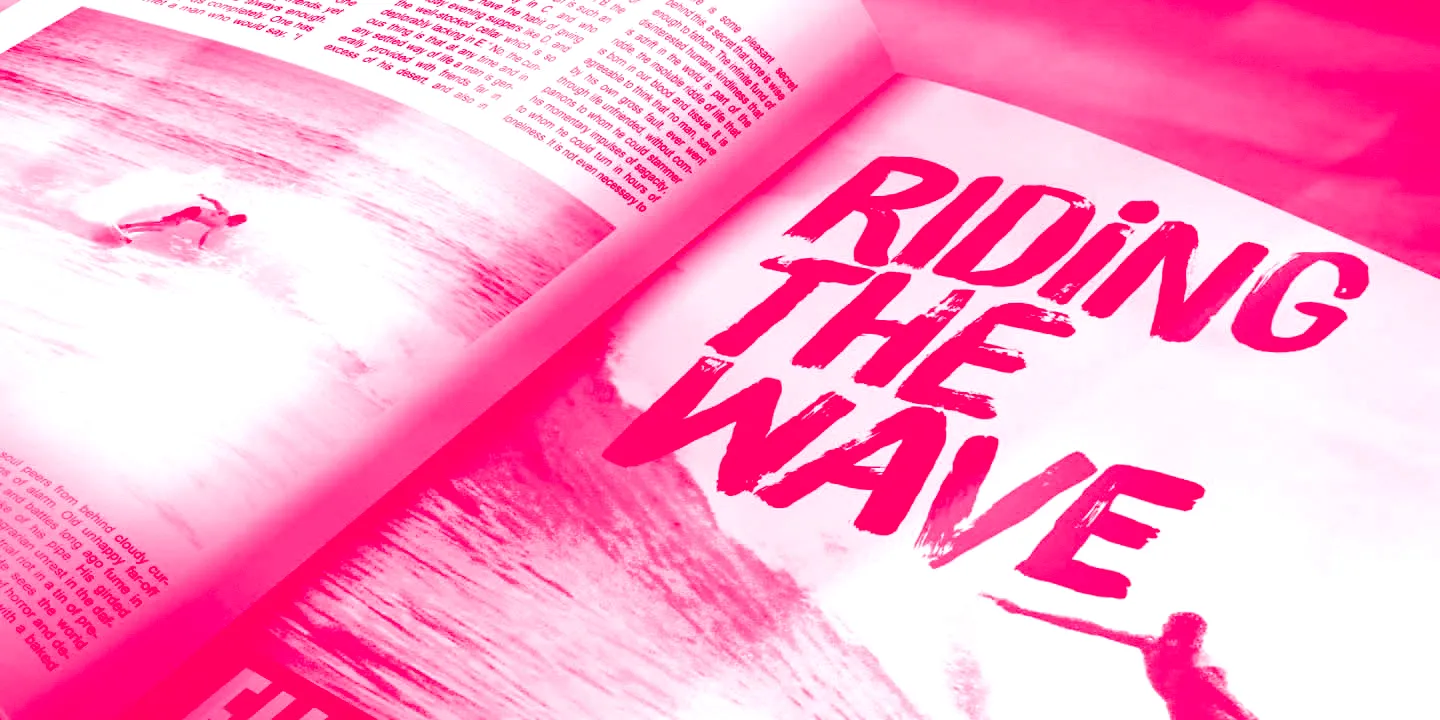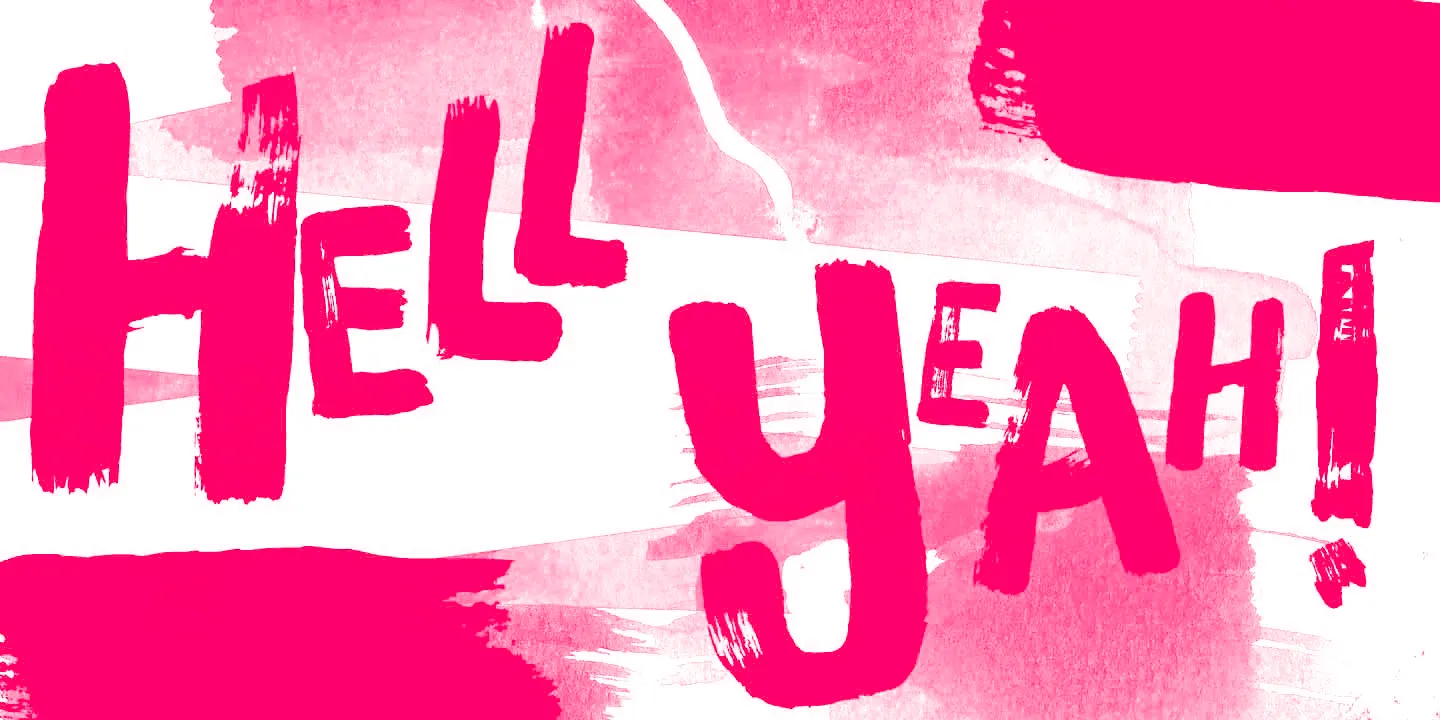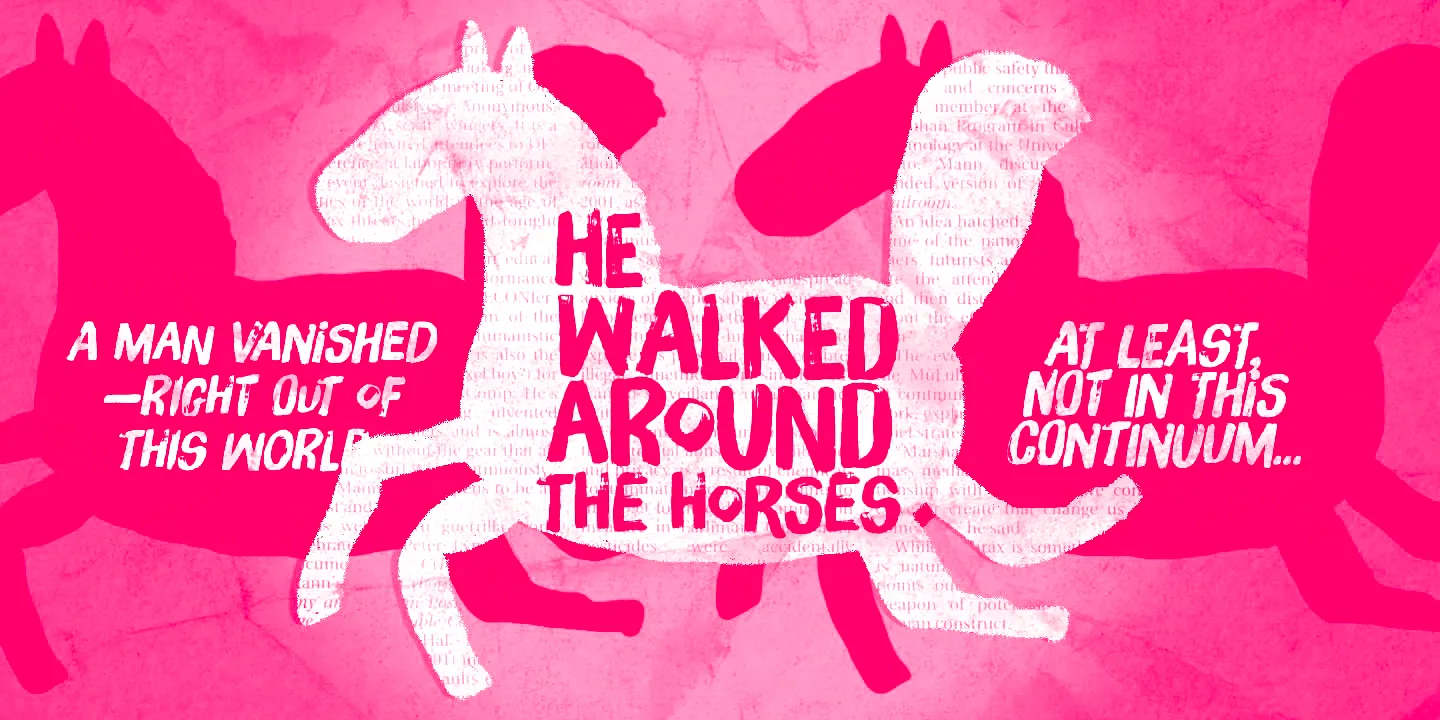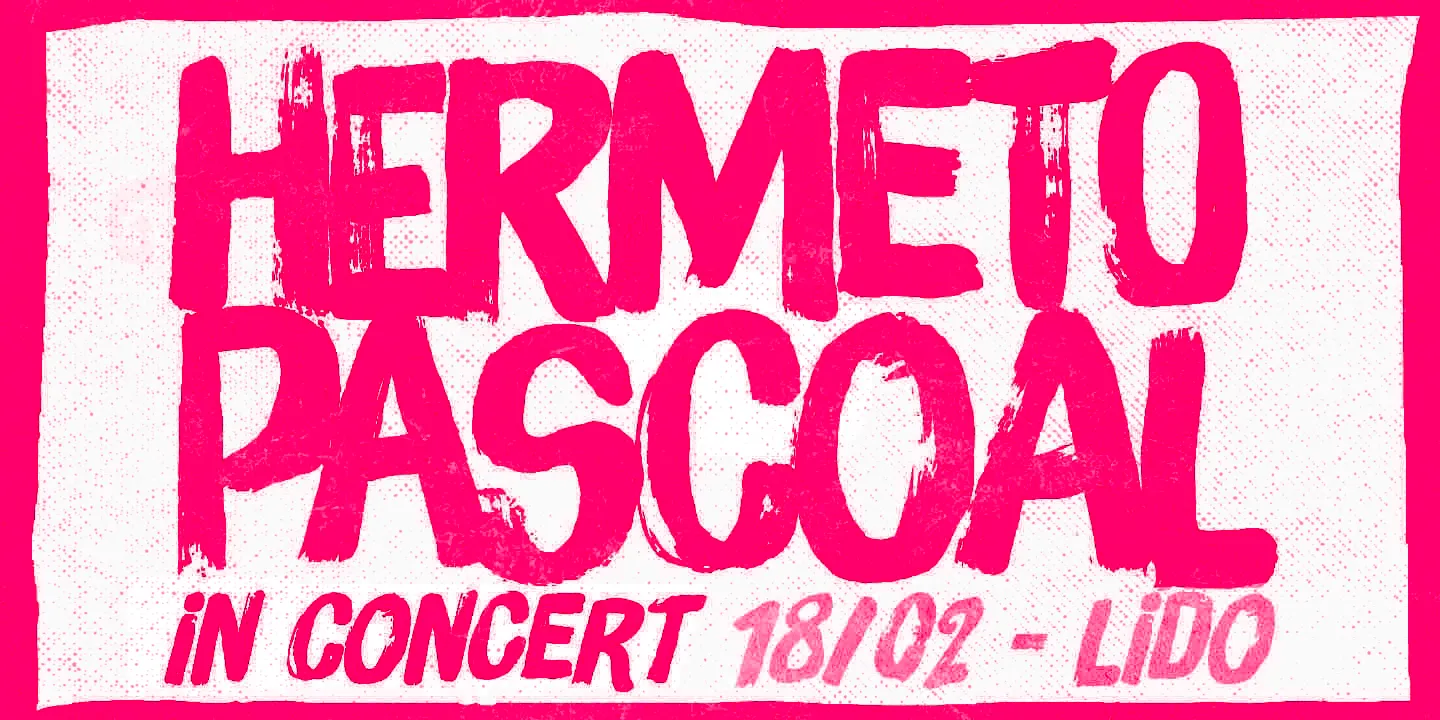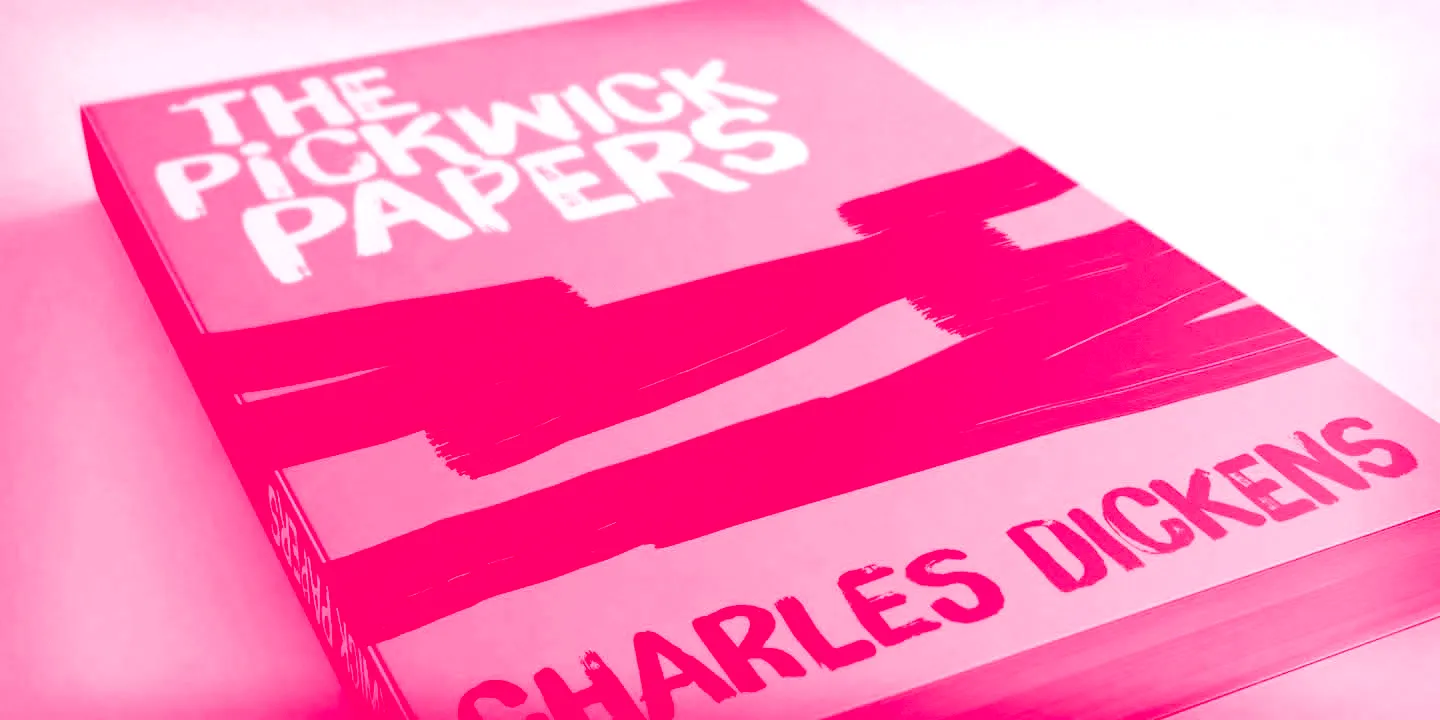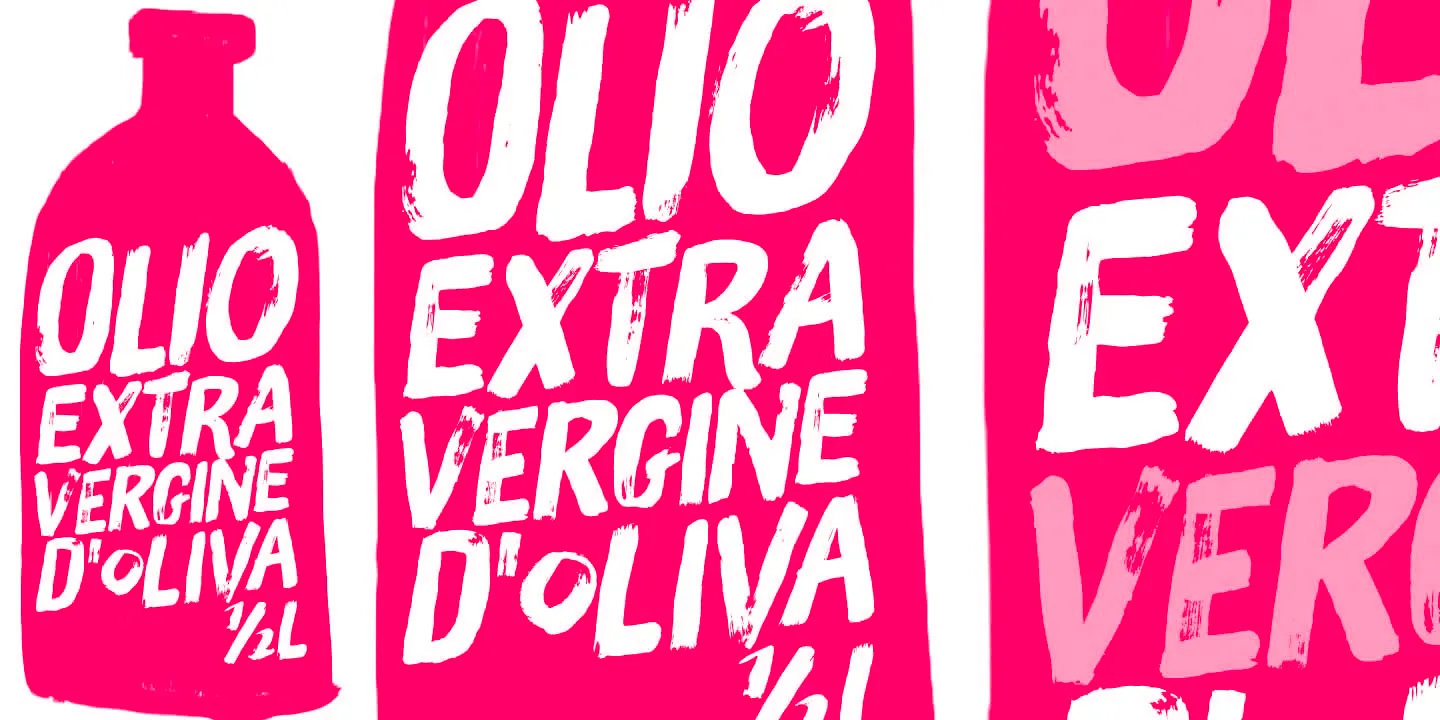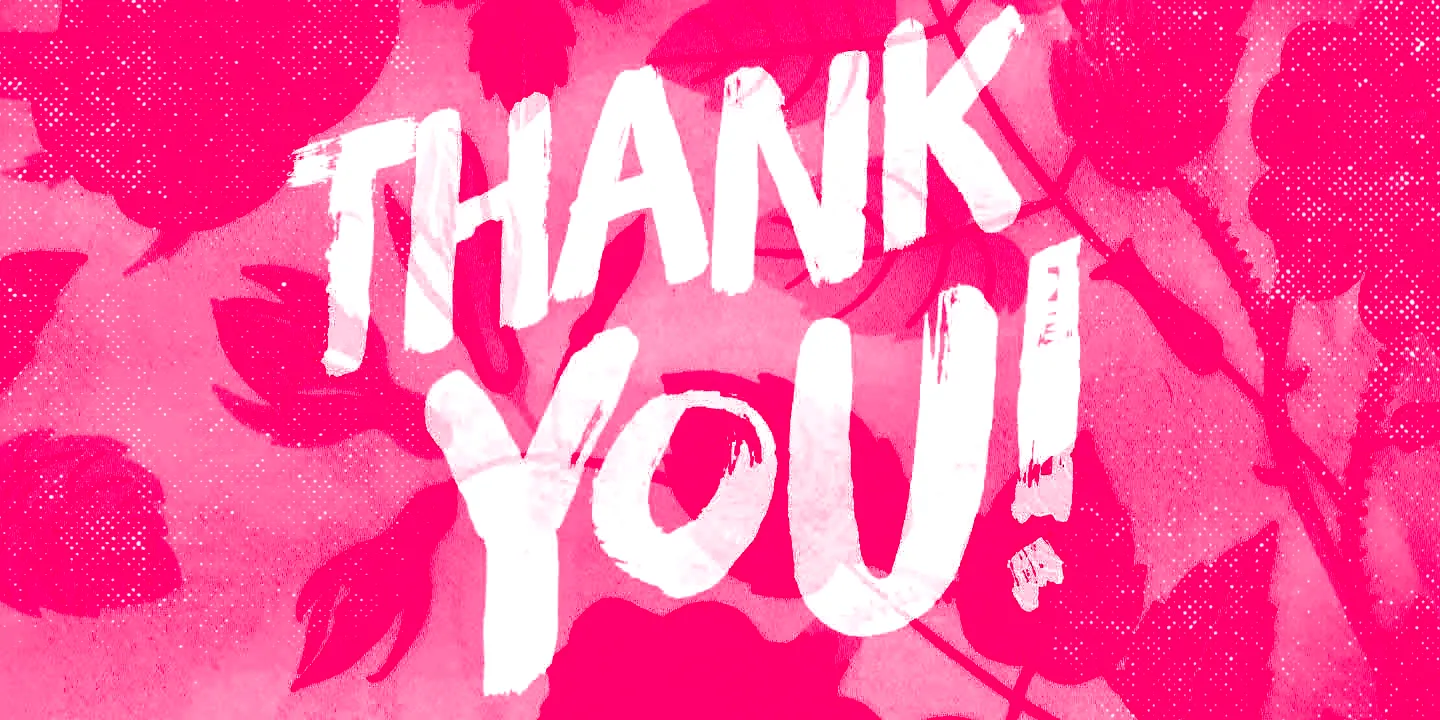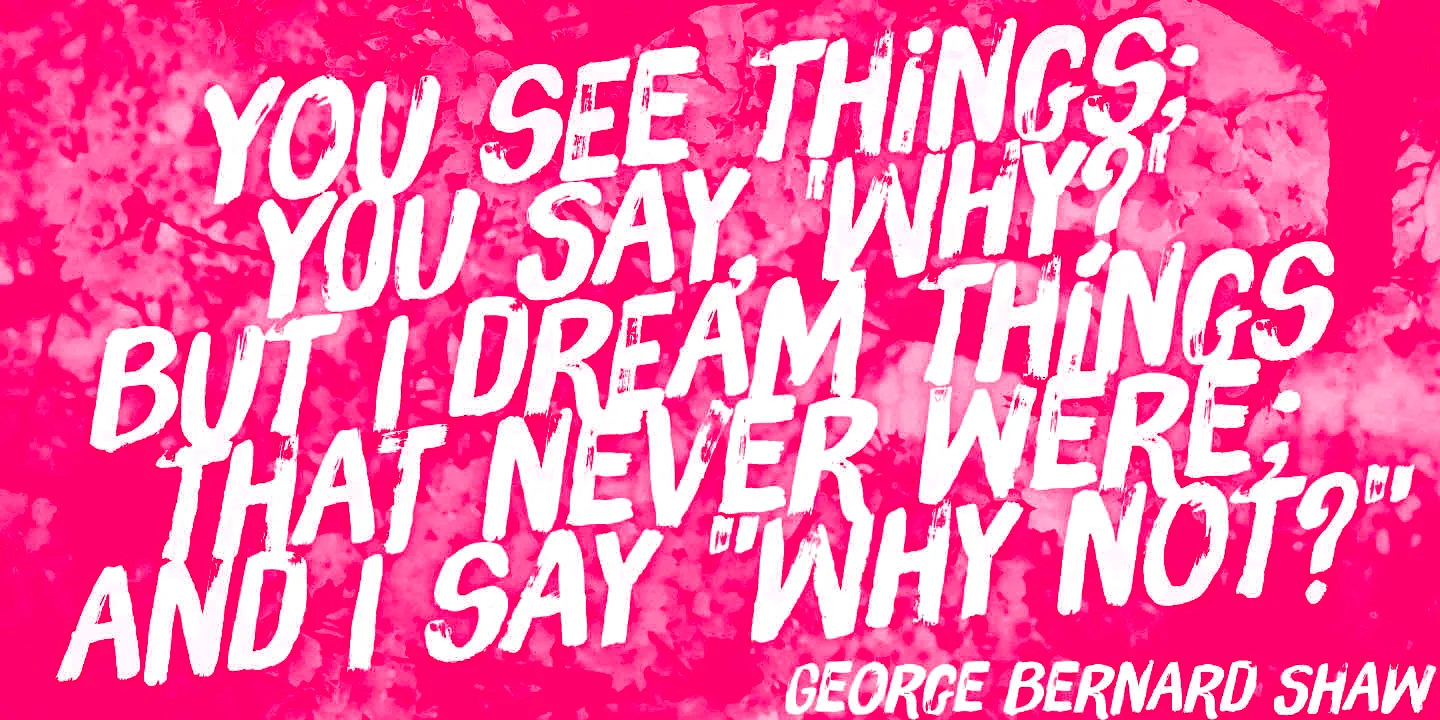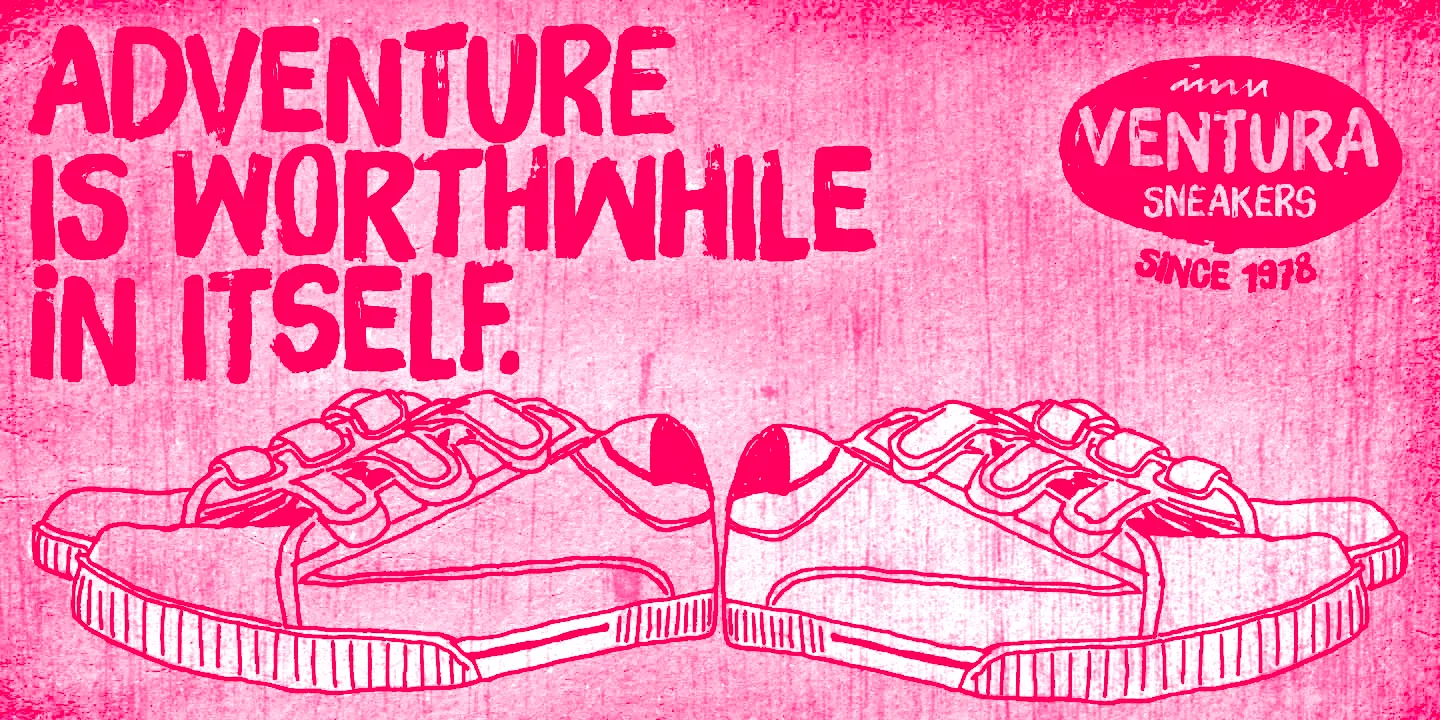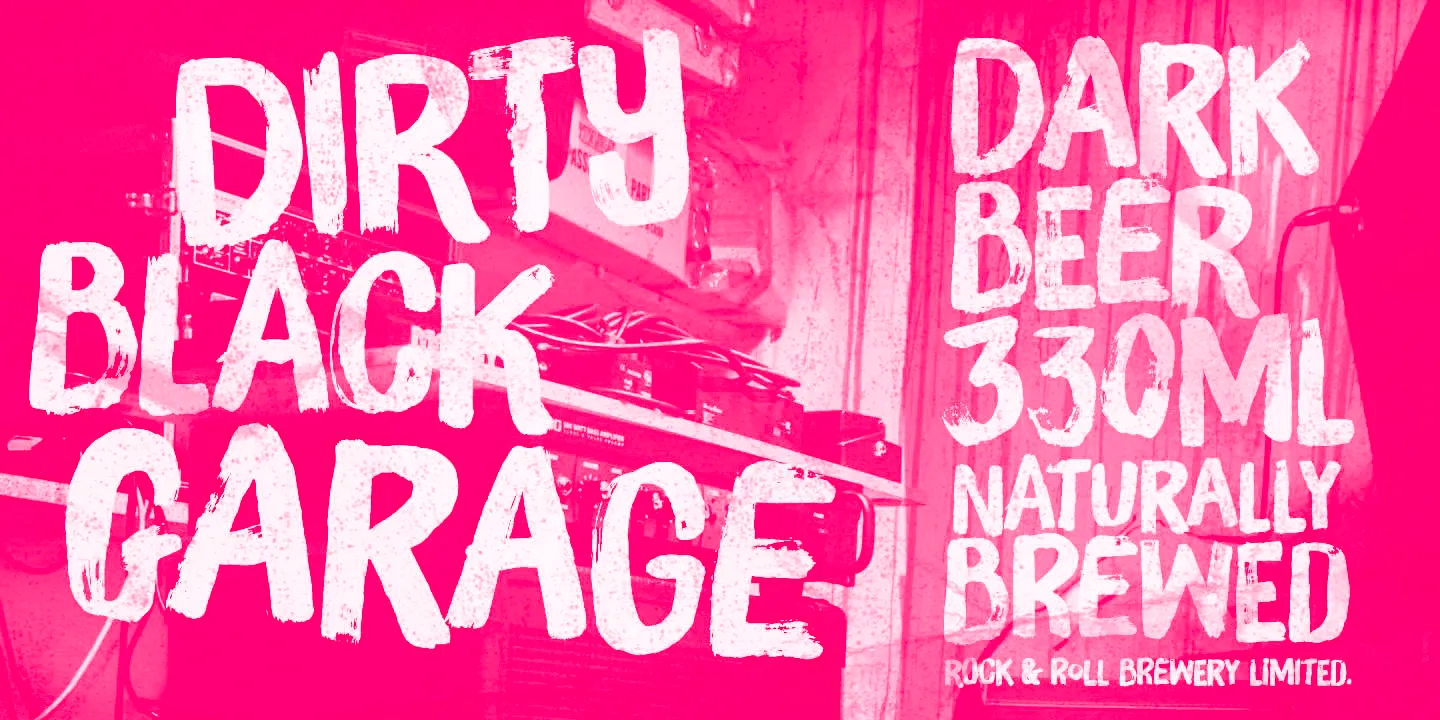
Brush Up
Brush Up is the cool, hand-painted typeface you are looking for. Swiftly painted on paper and carefully translated into a font, there are three glyphs for each letter and two for each number, plus variations for some punctuation marks. Surprisingly versatile, Brush Up is available in two cuts — upright and oblique — and will fit a wide range of purposes. Is it a headline? A small chunk of text? Maybe not that small? Ok, just Brush ’em all!